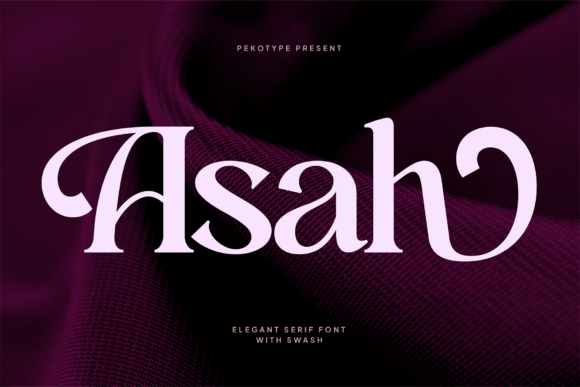
The Elegance of ASAH: A Timeless Serif Font for Luxury Branding
I still remember the design project that led me to discover the ASAH font. I was working on a luxury branding campaign for a high-end fashion label, and I was struggling to find the perfect font that exuded elegance, sophistication, and timelessness. The client was adamant that the font had to be classic yet modern, and I was on a mission to find the holy grail of typography. That’s when I stumbled upon ASAH, and it was love at first sight! ✨
An Honest Review of ASAH
What I Love About ASAH
- ✨ Elegant and refined design with high-contrast strokes and sophisticated letterforms
- ✅ Multilingual support for global branding and editorial use
- ✅ Uppercase and lowercase characters for flexibility
- ✅ Timeless serif construction for long-term relevance
- ✅ Works effortlessly across classic and modern design needs
While ASAH is an exceptional font, there are a few minor quirks to be aware of: 🤔
- ⚠️ Some users may find the font too elegant or refined for certain design projects, such as bold or edgy campaigns
- ⚠️ The font may not work well with very small font sizes or low-resolution images
- Experiment with OpenType features, such as ligatures and stylistic alternates, to add an extra layer of sophistication to your design
The Designer Inspiration Behind ASAH
The story behind ASAH’s creation is one of passion and dedication. The designer, inspired by the elegance of classic serif fonts, set out to create a typeface that would exude sophistication and timelessness. With a focus on high-contrast strokes and refined letterforms, ASAH was born. Today, it’s a beloved font among designers and luxury brands alike. 📚
Q: What is ASAH font?
A: ASAH is a refined serif typeface designed to express elegance, balance, and timeless beauty.
Q: What is ASAH font used for?
A: ASAH is ideal for luxury branding, editorial layouts, invitations, social media graphics, and high-end marketing materials.